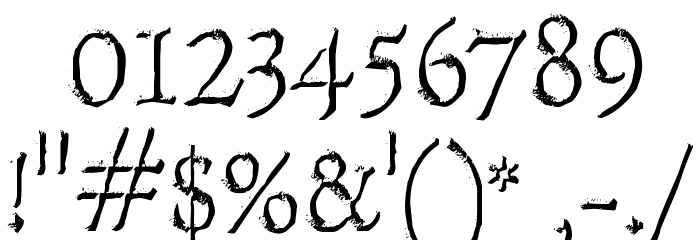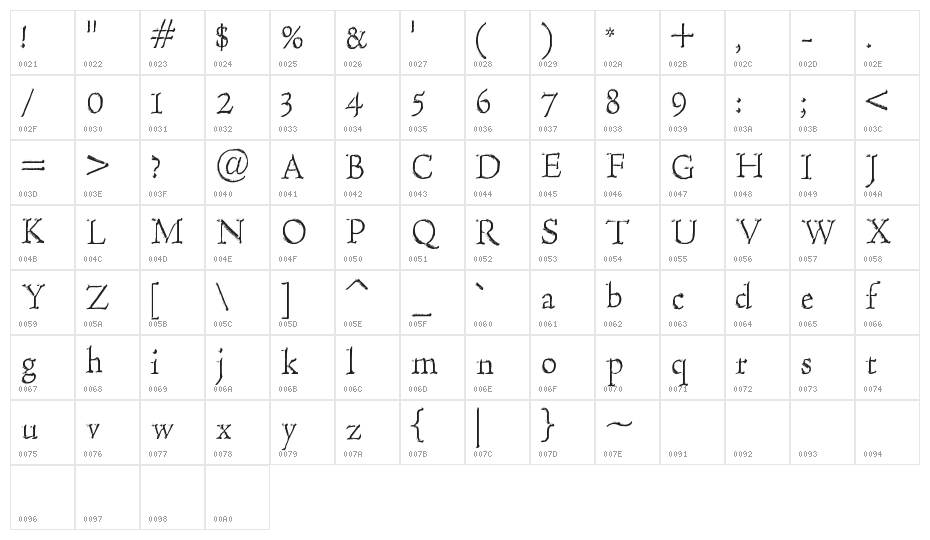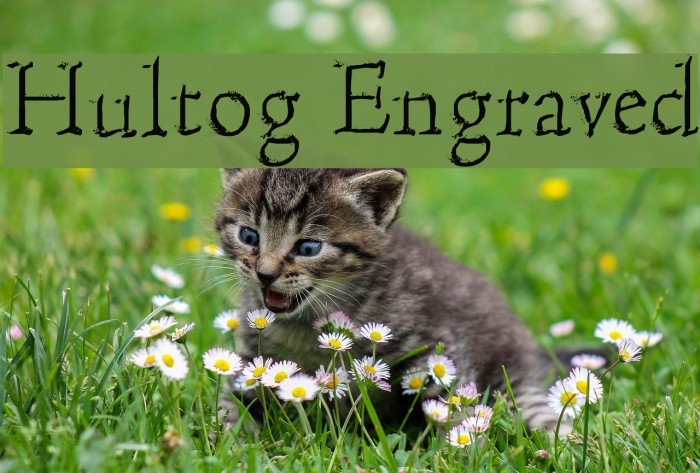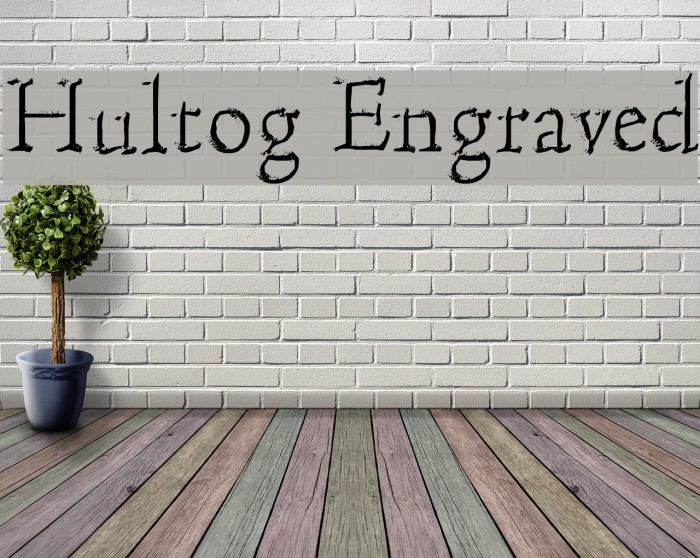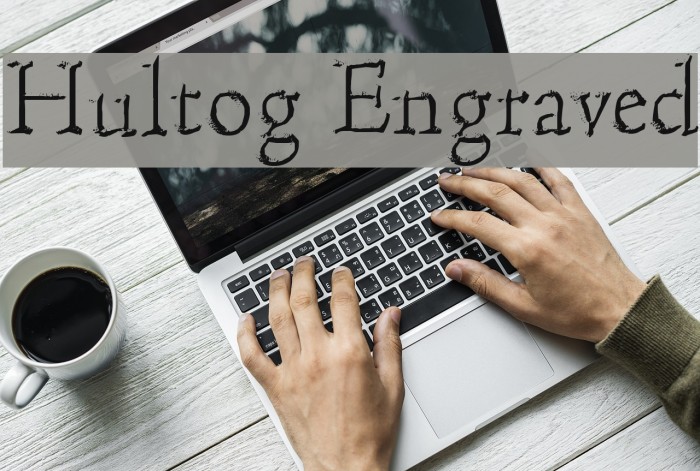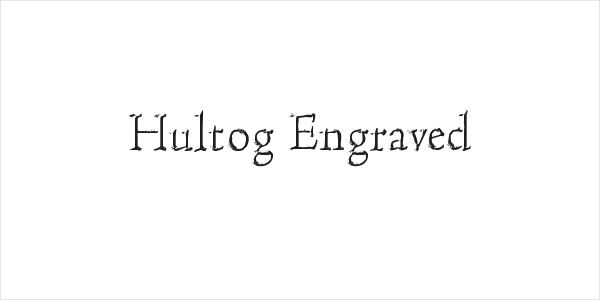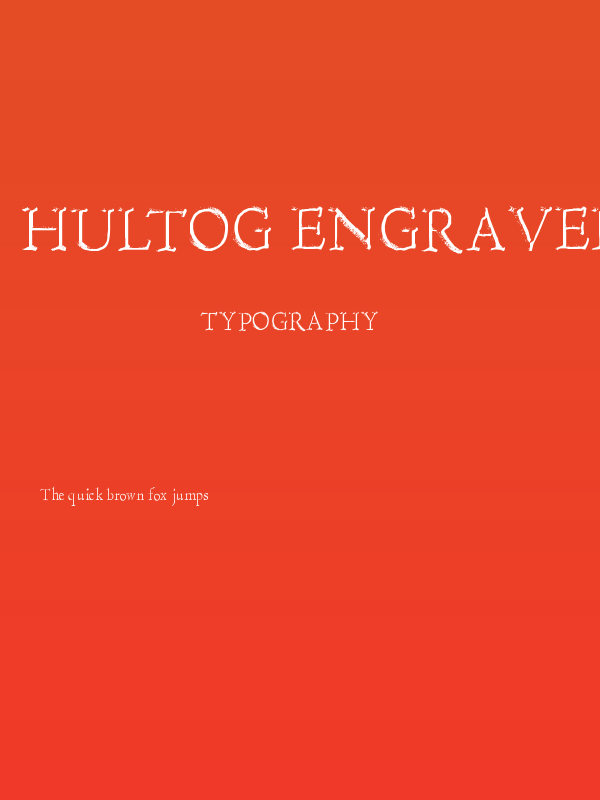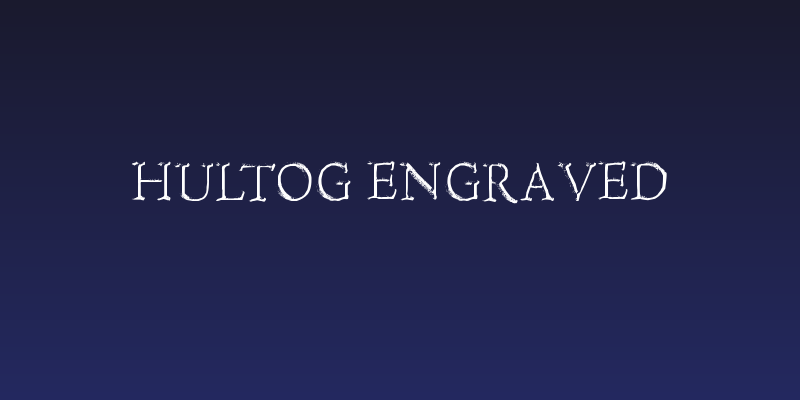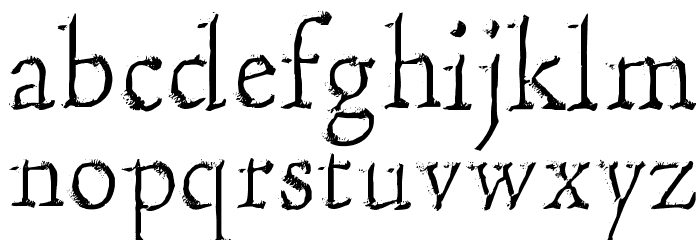
Hultog Engraved Font
Hultog Engraved Description
This font features an engraved style with a textured, distressed appearance that gives it a vintage and classic feel. The uppercase letters are bold and prominent, while the lowercase letters maintain a consistent style with slightly more delicate strokes. Numbers and special characters follow the same engraved aesthetic, adding to the overall cohesive design. The font's unique texture makes it stand out, providing a sense of history and craftsmanship. It is well-suited for projects that require a touch of elegance and antiquity.
| Proposed Projects | Ideal for use in branding, packaging, invitations, and any design that seeks a historical or elegant touch. |